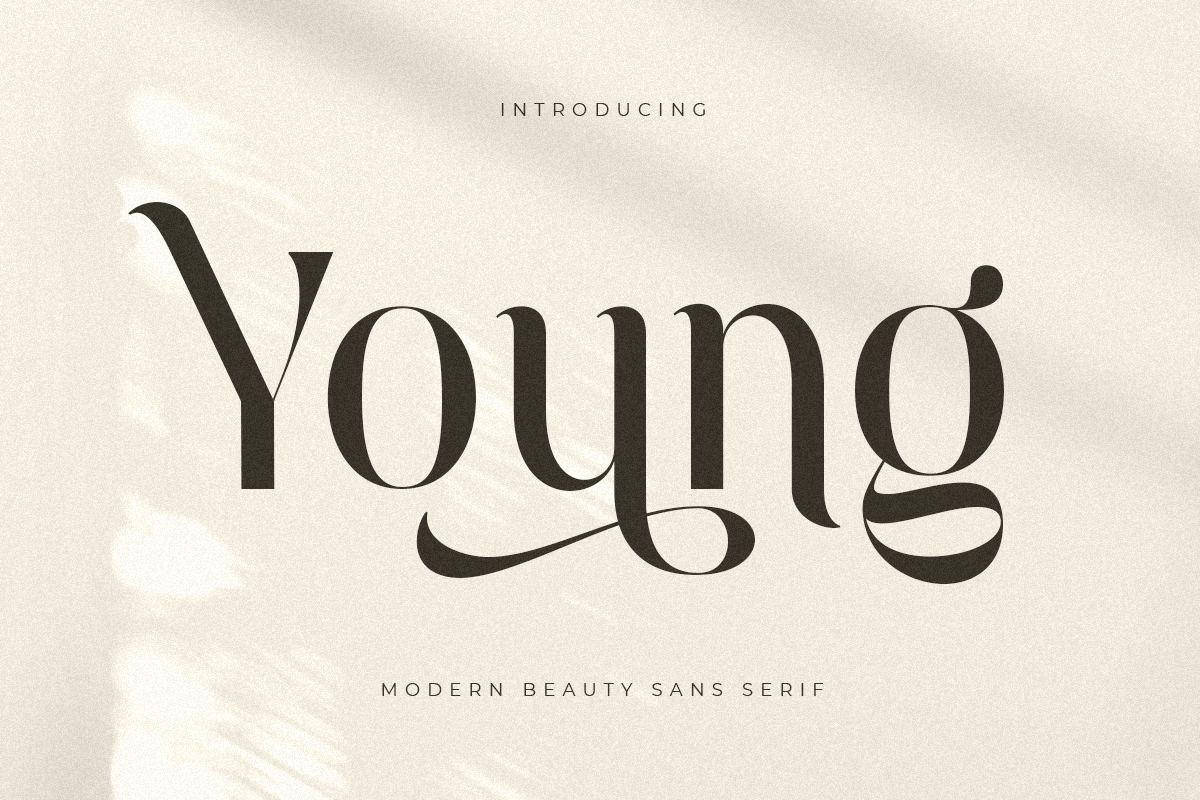
Young
A new Sans serif that we created special for branding needs, with extra ligature in unique shape add value of your brand. It so nice to leverage designer or product owner that need solutions to make their design look more stylish and modern. And specially for Young font, We prepared any ligatures, and any alternate characters to help you create unlimited variations for your creative needs.
Young Modern Beauty sans serif font ready with:
Any options to get creative variations (combination of Alternate and Ligatures)
Preview as a inspirations that you can do with Young font